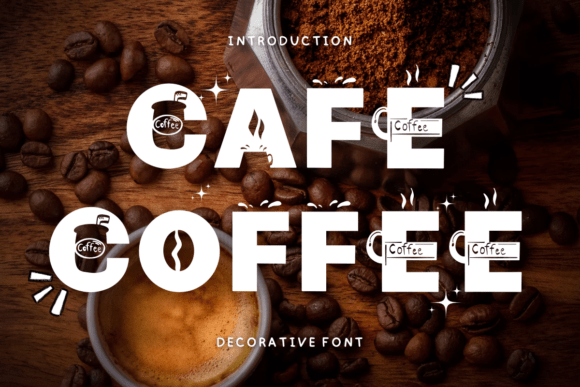
The Perfect Blend of Creativity: Cafe Coffee Font
Who hasn’t scribbled down their thoughts and ideas in a coffee shop at some point? The aroma of freshly brewed coffee, the sound of gentle chatter, and the feeling of being surrounded by creativity – it’s the perfect setting for sparking inspiration. For many of us, this is where the best ideas are born.
Cafe Coffee Font is a beautiful, decorative font that captures the essence of those cozy moments. Designed for a range of creative pursuits, from writing a diary to making greeting cards, this font is perfect for adding a personal touch to your designs. Whether you’re a graphic designer, a crafter, or simply someone who loves to express themselves through art, Cafe Coffee Font is a valuable addition to your toolkit.
Cafe Coffee Font Key Features
- Unique Characteristics: Cafe Coffee Font features a unique blend of modern and vintage elements, with a distinctive coffee cup-inspired design that adds a touch of whimsy to any project.
Cafe Coffee Font Review
Overall, I found the Cafe Coffee Font to be a decent option for a casual, food-related design project. Here are some of its strengths and weaknesses.
- Warm and inviting feel: The font’s rounded edges and subtle curves evoke a cozy, welcoming atmosphere perfect for a coffee shop or bakery.
- Legibility: The font is relatively easy to read, even at smaller sizes, making it suitable for menus, signage, or other text-heavy applications.
- Playful nuances: The font’s unique character shapes add a touch of personality to the design, making it stand out from more generic sans-serif fonts.
- Limited scalability: While the font looks great at larger sizes, it can become somewhat distorted or pixelated at smaller sizes, which may require additional formatting adjustments.
- Lack of bold weights: The font’s weight options are limited, which can make it challenging to create visually appealing headings or emphasis.
Overall, I’d say the Cafe Coffee Font is a solid choice for projects that require a casual, approachable feel. However, its limitations may make it less suitable for more formal or complex designs.
Some tips for getting the most out of the Cafe Coffee Font include:
Using it for cafe or restaurant branding and marketing materials.
Applying it to text elements in designs related to food, coffee, or lifestyle.
Experimenting with different font sizes and styles to create visual interest.